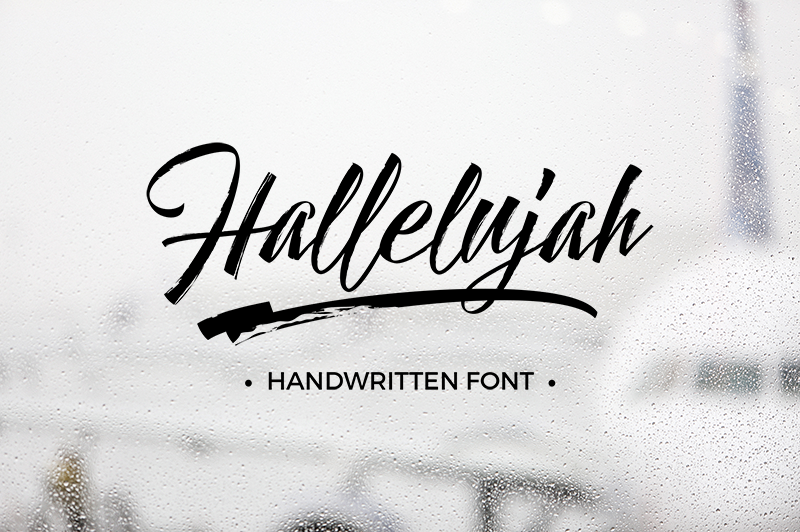
Font name: | Hallelujah |
Author: | Elementype |
Note by Elementype | |
introducing Hallelujah, a font inspired by the handwriting. This is only a small part of hallelujah font family (Hallelujah Brush, Hallelujah Regular, Hallelujah Light, Hallelujah Swashes Brush, Hallelujah Swashes), to get more visit https://crmrkt.com/d7p0B join our facebook page https://www.facebook.com/elementype |